27 Vibrant & Colourful Fonts to Instantly Brighten Your Designs
Are you tired of standard, monochromatic typography that blends into the background? It is time to breathe fresh life into your projects with vibrant, eye-catching typefaces that demand attention. Whether you are designing party invitations, children’s books, or striking social media graphics, this handpicked collection of colourful fonts will instantly elevate your creative work and leave a lasting impression.
1. Pencil Doodle Font
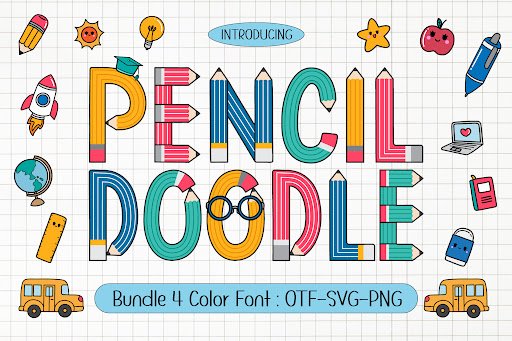
Inject a sense of playful creativity into your projects with the Pencil Doodle Font. This delightfully hand-drawn typeface perfectly captures the charming irregularities of actual pencil sketches.
Whether you are designing classroom materials, children’s books, or a quirky brand identity, this font brings a personalized, approachable warmth to your typography. Its highly detailed texture makes every word feel wonderfully unique.
2. Paint Splashes Font
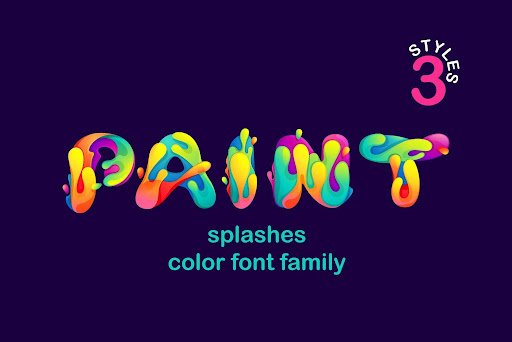
Embrace the beauty of controlled chaos with the Paint Splashes Font. Bursting with artistic flair, this typeface features vivid, expressive strokes that mimic the bold movement of a painter’s brush.
It is the ultimate choice for striking poster designs, modern art galleries, and any brand that wants to showcase a vibrant, rebellious spirit. Let your text leap off the page with vibrant energy.
3. Halloween Bone Font
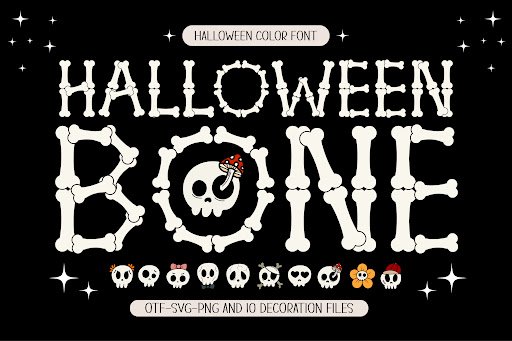
Who says spooky can not be colorful? The Halloween Bone Font offers a frightfully fun twist on traditional seasonal typography by blending eerie bone shapes with vibrant hues.
This font is an absolute treat for October event flyers, trick-or-treat bags, and playful party invitations. It guarantees a festive and eye-catching aesthetic that kids and adults will adore.
4. Watercolor Font
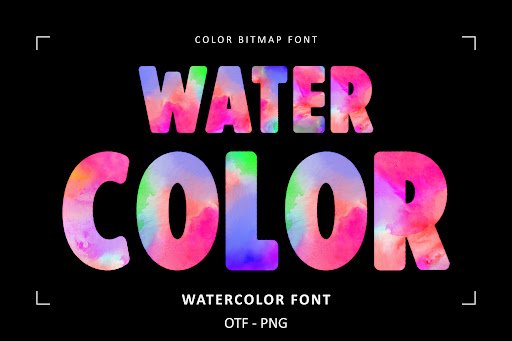
Soft, fluid, and undeniably elegant, the Watercolor Font brings the delicate beauty of painted washes right to your digital canvas. Its blending hues create a mesmerizing and sophisticated look.
Perfect for wedding invitations, boutique branding, and inspirational social media quotes, this font adds a touch of tranquil artistry. It is a fantastic way to introduce subtle yet striking color variations into your designs.
5. Super Kids Font
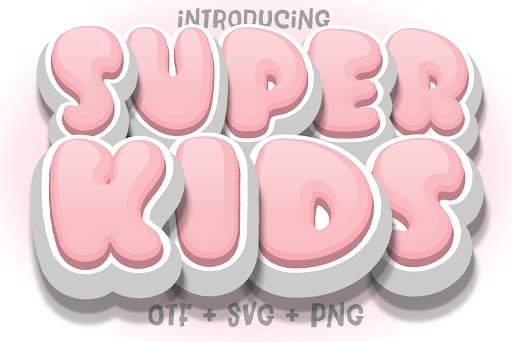
Capture the boundless energy of youth with the Super Kids Font. This bold and chunky typeface is specifically designed to be highly readable while maintaining an incredibly fun aesthetic.
From toy packaging to animated videos and lively children’s books, this font ensures your text is as dynamic as its target audience. Its vibrant appearance instantly commands attention.
6. Happy Birthday Font
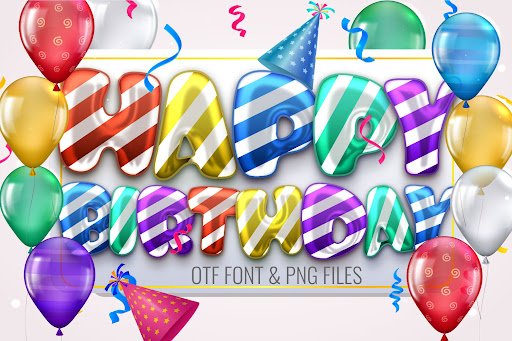
Celebrate in style with the Happy Birthday Font, a typeface that embodies the pure joy of a special occasion. Its festive letterforms are practically bursting with celebratory excitement.
This is your new go-to font for greeting cards, party banners, and custom gift tags. It effortlessly sets a cheerful tone, ensuring your festive designs look spectacular.
7. Rainbow Twinkle Font
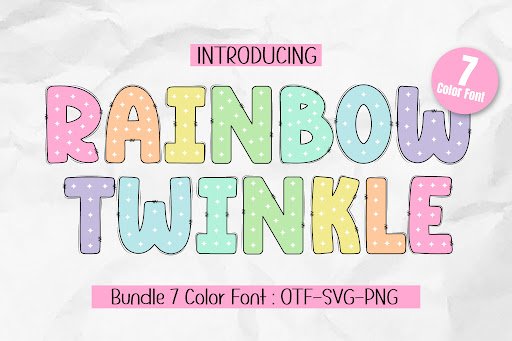
Add a sprinkle of magic to your digital artwork with the Rainbow Twinkle Font. This enchanting typeface features starry accents and a whimsical color palette that feels straight out of a fairy tale.
Ideal for dreamlike posters, magical event branding, and imaginative storybooks, it casts a spell of wonder over your audience. Elevate your creative projects with this truly stellar design.
8. Into the Wild Font
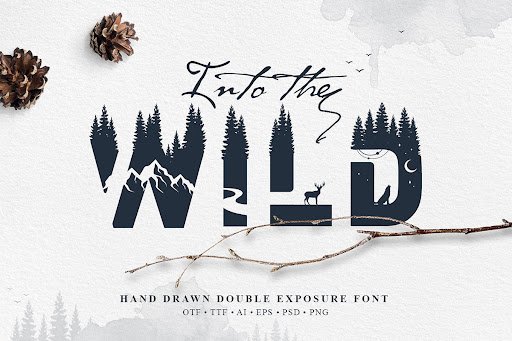
Channel the spirit of adventure with the Into the Wild Font. Featuring a rugged yet colorful nature-inspired aesthetic, this font is perfect for brands that love the great outdoors.
Whether you are crafting graphics for a camping retreat or designing eco-friendly product labels, this typeface delivers a bold, organic vibe. It perfectly bridges the gap between wilderness and vibrant design.
9. Rainbow Pow Font
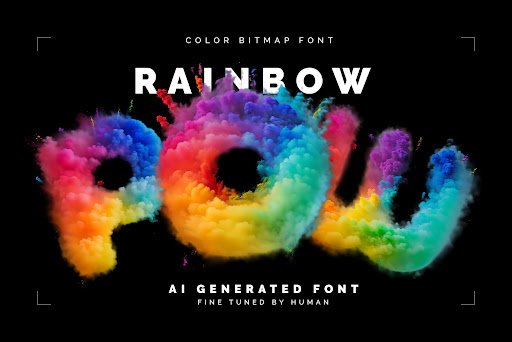
Bring the action-packed excitement of comic books to life with the Rainbow Pow Font. Its explosive, dynamic letterforms are designed to make a massive visual impact.
This font is practically begging to be used in high-energy marketing campaigns, YouTube thumbnails, and superhero-themed merchandise. Make sure your headlines pack a serious punch.
10. Bright Flower Doodle Font
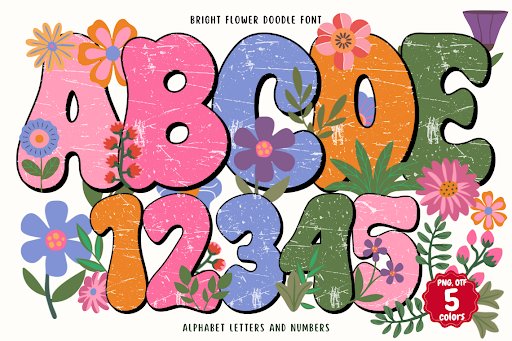
Celebrate the beauty of spring year-round with the Bright Flower Doodle Font. Intricately detailed with floral elements, this typeface is a blooming masterpiece.
It works wonderfully for botanical garden promos, Mother’s Day cards, and organic skincare branding. Give your typography a fresh, natural, and delightfully colorful blossom.
11. Vintage Rainbows Font
Step back into a groovier era with the Vintage Rainbows Font. This typeface masterfully blends retro 1970s aesthetics with a vivid, modern color palette for a nostalgic yet fresh look.
It is exceptionally suited for trendy apparel designs, music festival posters, and stylish social media feeds. Let your text ride the wave of vintage cool.
Download Vintage Rainbows Font
12. Pickley Font
Quirky, bold, and bursting with personality, the Pickley Font is a textured delight. Its playful curves and engaging visual weight make it a standout choice for casual designs.
Use this incredibly fun typeface for food branding, restaurant menus, or any project that doesn’t take itself too seriously. It is a fantastic way to serve up some colorful charm.
13. Super Font
Unleash your creative superpowers with the Super Font. Built for maximum legibility and impact, this heroic typeface is robust, striking, and unashamedly bold.
Whether you are designing video game interfaces, bold headlines, or energetic sports banners, this font delivers undeniable strength. It is the champion of high-impact colorful typography.
14. Easter Alphabet Collection Font
Welcome the spring season with the Easter Alphabet Collection Font. This beautifully curated set features soft pastel tones and intricate holiday-themed decorations.
Perfect for Sunday brunch menus, egg-hunt promotional flyers, and seasonal crafts. It brings a gentle, joyful spirit to any springtime creative project.
Download Easter Alphabet Collection Font
15. Dotted Easter Font
Delightfully precise and endlessly cute, the Dotted Easter Font incorporates intricate polka-dot patterns into its vibrant letterforms. It is a highly decorative font that feels both festive and refined.
This is an excellent option for delicate seasonal greeting cards, baby shower invitations, and cheerful party decor. It adds a lovely textural element to your text.
16. 3d Spring Font
Give your typography a literal pop with the 3d Spring Font. This dimensional typeface leaps off the screen, providing incredible depth and a vibrant, seasonal color scheme.
It is perfect for digital graphics, eye-catching website headers, and modern advertising campaigns. Bring a contemporary, spatial dynamic to your wording.
17. Daisy Font
Sweet, simple, and utterly charming, the Daisy Font is a floral-inspired dream. Its smooth curves and bright disposition make it incredibly pleasing to the eye.
Ideal for feminine branding, boutique logos, and personalized stationery. It guarantees that your design will flourish with a friendly, welcoming aesthetic.
18. Happy Watercolor Font
Combine the joy of bright colors with artistic fluidity using the Happy Watercolor Font. This typeface mimics the authentic texture of wet paint on canvas for a truly organic feel.
From uplifting quote posters to sophisticated packaging, this font offers a handmade touch that resonates with audiences. It is a stroke of pure creative genius.
Download Happy Watercolor Font
19. Spider Boy Font
Swing into action with the Spider Boy Font. Featuring web-like details and an agile, athletic structure, it is a thrilling typeface for high-octane designs.
This is the ultimate choice for comic conventions, children’s superhero parties, and dynamic apparel graphics. Give your typography an adventurous, heroic edge.
20. Sideways Font
Break the mold with the Sideways Font, a wonderfully unconventional typeface that plays with orientation and perspective. Its dynamic styling ensures your text is never boring.
Perfect for streetwear brands, avant-garde magazine layouts, and edgy promotional materials. This font proves that looking at things from a different angle is always a good idea.
21. Neon Colored Font
Light up the night with the Neon Colored Font. Emulating the bright, electric glow of traditional neon signage, this typeface is a showstopper for dark backgrounds.
It is absolutely essential for nightclub promotions, retro-wave artwork, and vibrant digital advertising. Make your words shine with unmistakable brilliance.
22. Hoppy Days Font
Bounce into creativity with the Hoppy Days Font. This incredibly fun, Easter-inspired typeface is packed with playful energy and cheerful aesthetics.
Whether designing springtime apparel, festive web banners, or joyful greeting cards, it delivers a heartwarming vibe. Keep your designs light, fun, and delightfully vibrant.
23. Hello School Font
Make learning fun with the Hello School Font. Combining neat, educational letterforms with a playful, colorful twist, it is perfect for any academic setting.
Teachers and educational content creators will love this font for worksheets, classroom decor, and informative presentations. It perfectly balances readability with engaging design.
24. Soccer Football Army Font
Bring the stadium atmosphere to your designs with the Soccer Football Army Font. Bold, structured, and commanding, this athletic typeface means business.
It is the premium choice for team jerseys, sports event posters, and competitive branding. Give your typography the strength and structure of a champion.
Download Soccer Football Army Font
25. Grunge Diy Distressed Font
Embrace raw, unfiltered energy with the Grunge Diy Distressed Font. This rough, heavily textured typeface offers a punk-rock aesthetic with a splash of defiant color.
Perfect for alternative music artwork, skate brands, and edgy street posters. Let your designs speak with a loud, unapologetic voice.
Download Grunge Diy Distressed Font
26. Marvel Brothers Font
Capture epic cinematic scale with the Marvel Brothers Font. This commanding, blocky typeface is designed for legendary storytelling and massive visual presence.
Use it for action movie parodies, comic book titles, and impactful branding that needs to look larger than life. Transform ordinary text into a heroic statement.
27. Bubble Rainbow Scribble Font
Round off your collection with the Bubble Rainbow Scribble Font. This irresistibly cute typeface features plump, bubbly letters filled with a delightful scribbled rainbow texture.
It is a fantastic asset for crafting stickers, children’s party invites, and playful merchandise. Wrap up your creative projects with this incredibly sweet design.
Choosing the right typeface can completely transform the mood and impact of your work. These 27 colourful fonts offer an incredible range of styles, from elegant watercolors to bold, comic-book action, ensuring you have the perfect typography for any project. Don’t settle for boring text—download your favorites today and let your creativity shine brighter than ever before!